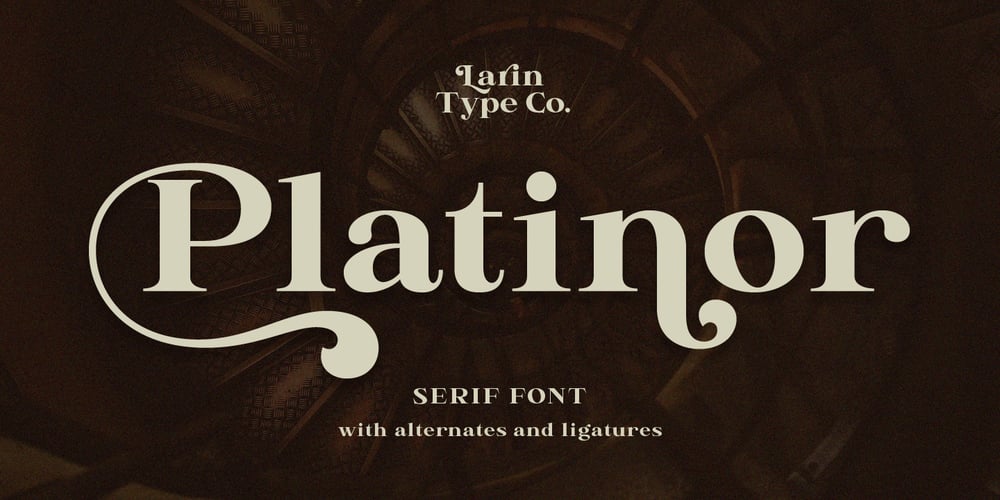
Platinor Font Family was designed by Pavel Larin and published by Larin Type Co. Platinor contains 1 styles and family package options. Platinor this is a beautiful and elegant Display Serif font. You can use this font in the classical style, with it you can highlight exactly what you need. But Platinor can also be more expressive, playful and looking vintage due to the many alternatives and ligatures that are harmoniously combined in this font. Try changing alternatives, ligatures and you will get many options for your project, which will make it unique. This font is easy to use as it has OpenType features.